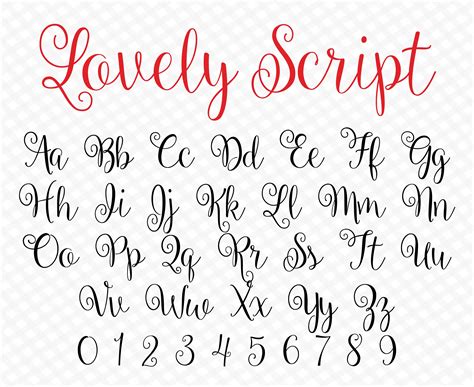
Vintage Cursive Font
In the digital age, where sleek and modern fonts dominate the design landscape, there's a timeless elegance that comes with using a vintage cursive font. These fonts, inspired by the calligraphy and typography of yesteryears, bring a sense of nostalgia and sophistication to any project. Whether you're designing a wedding invitation, creating a logo, or crafting a vintage-themed website, a vintage cursive font can add a unique touch that sets your work apart.
Understanding Vintage Cursive Fonts
A vintage cursive font is characterized by its flowing, handwritten style, reminiscent of the scripts used in the 18th and 19th centuries. These fonts often feature intricate loops, swashes, and varying line widths, giving them a personal and artistic flair. The beauty of vintage cursive fonts lies in their ability to evoke a sense of history and tradition, making them perfect for projects that aim to capture a bygone era.
The History of Cursive Fonts
The origins of cursive writing can be traced back to ancient Roman times, where scribes developed a faster, more efficient way of writing called "cursiva." Over the centuries, cursive writing evolved, with different styles emerging in various regions. By the 18th and 19th centuries, cursive had become a staple in education, taught to children as a means of improving their penmanship and writing speed.
In the digital age, cursive fonts have seen a resurgence in popularity, thanks in part to the rise of graphic design software and the internet. Designers have embraced the vintage aesthetic, using cursive fonts to add a touch of elegance and sophistication to their work. Today, there are countless vintage cursive fonts available, each with its unique style and character.
Choosing the Right Vintage Cursive Font
Selecting the perfect vintage cursive font for your project involves considering several factors, including the overall aesthetic, readability, and the message you want to convey. Here are some tips to help you choose the right font:
• Consider the Context: Think about where and how the font will be used. For example, a font that looks great on a wedding invitation might not be suitable for a business logo.
• Readability: Ensure that the font is easy to read, especially if it will be used in large blocks of text. Some vintage cursive fonts can be quite ornate, making them difficult to decipher.
• Style and Aesthetic: Choose a font that complements the overall style and aesthetic of your project. For a more formal look, opt for a font with elegant, flowing lines. For a more casual vibe, consider a font with a looser, more playful style.
• Versatility: Select a font that can be used in various applications, from print to digital media. This will ensure that your design remains consistent across different platforms.
There are numerous vintage cursive fonts available, each with its unique characteristics. Here are some popular options that you might consider:
Font Name Description Best For
Great Vibes A highly popular font with a modern yet vintage feel, featuring elegant swashes and loops. Wedding invitations, logos, and branding.
Allura A classic cursive font with a timeless appeal, perfect for adding a touch of elegance to any project. Invitations, greeting cards, and social media graphics.
Dancing Script A playful and energetic font that mimics the look of hand-lettered signs, ideal for casual and fun projects. Menu designs, event posters, and casual invitations.
Lobster A bold and stylish font with a vintage-inspired design, featuring thick, rounded letters and a distinctive look. Headlines, logos, and branding materials.
Pacifico A fun and whimsical font with a hand-drawn feel, perfect for adding a personal touch to your designs. Children's books, greeting cards, and social media posts.
These fonts are just a starting point. There are many other vintage cursive fonts available, each with its unique style and character. Experiment with different fonts to find the one that best suits your project.
Using Vintage Cursive Fonts in Design
Once you've chosen the perfect vintage cursive font, it's time to incorporate it into your design. Here are some tips to help you make the most of your chosen font:
• Pairing Fonts: Cursive fonts often work best when paired with a complementary font. For example, you might pair a cursive font with a simple, sans-serif font for a modern look, or with a serif font for a more traditional feel.
• Size and Spacing: Pay attention to the size and spacing of your text. Cursive fonts can be more challenging to read at smaller sizes, so make sure your text is large enough to be easily legible. Additionally, adjust the line spacing to ensure that the text is easy to read.
• Color and Contrast: Choose colors that complement your font and provide enough contrast to make the text stand out. Dark text on a light background is generally the most readable, but you can experiment with different color combinations to achieve the desired effect.